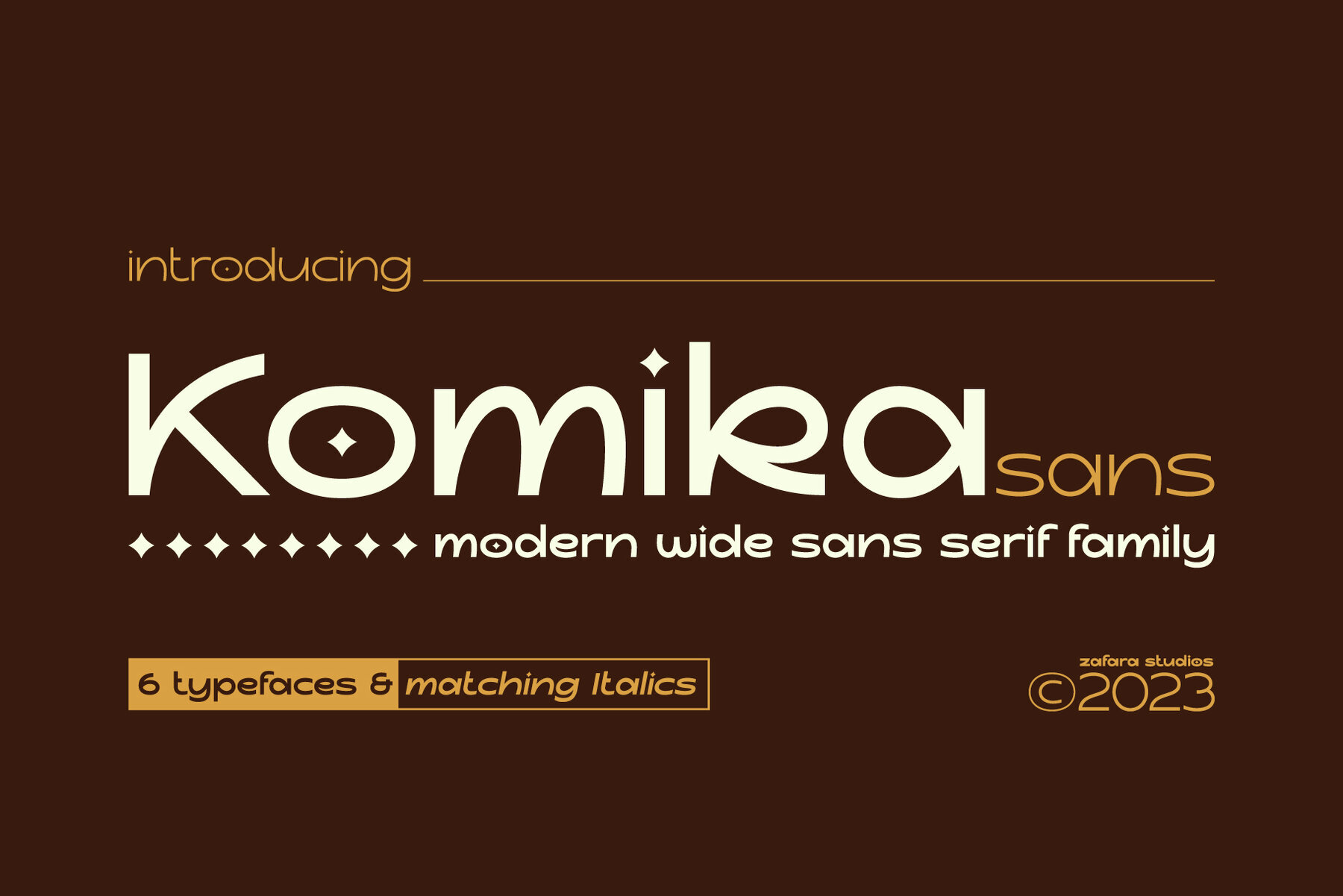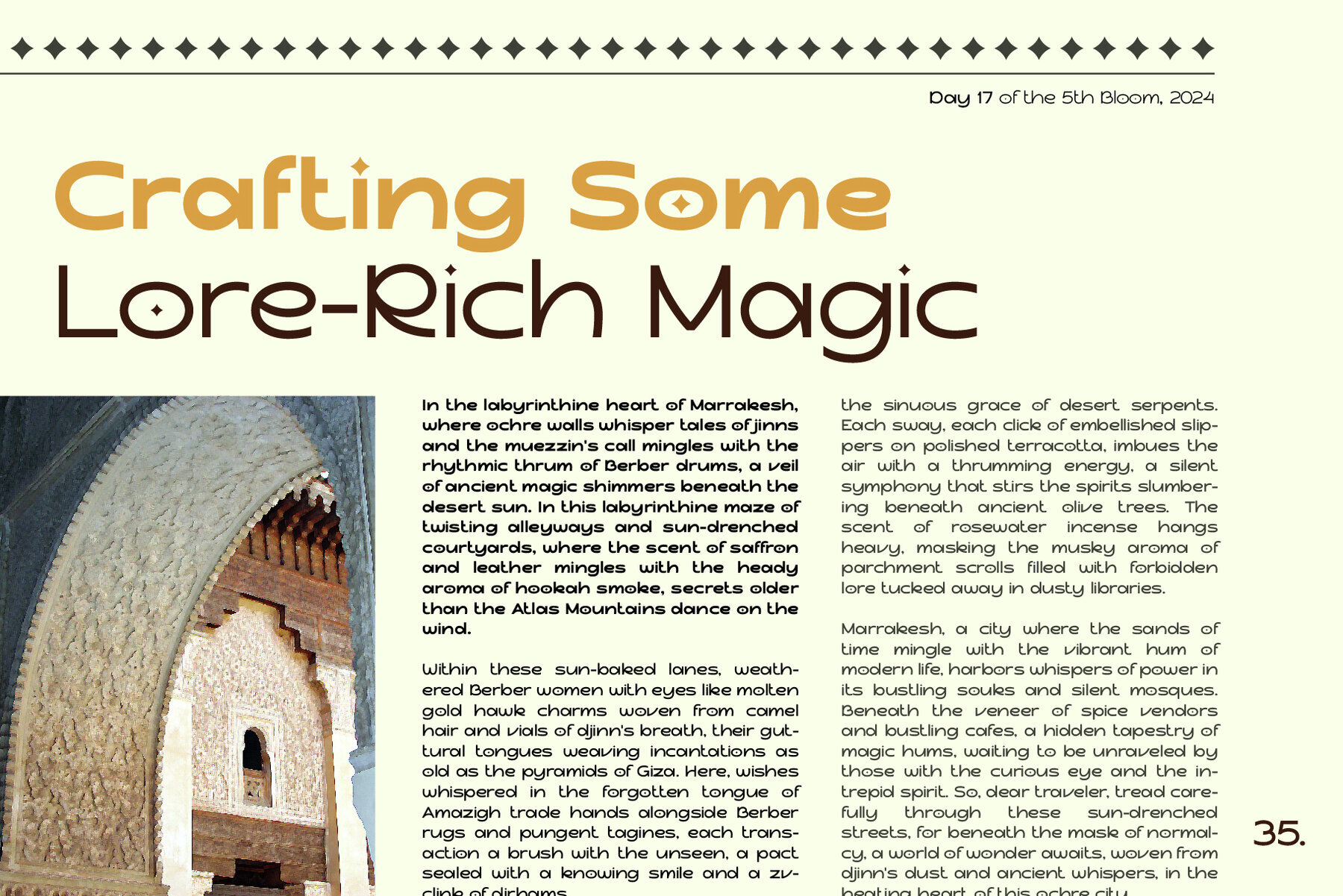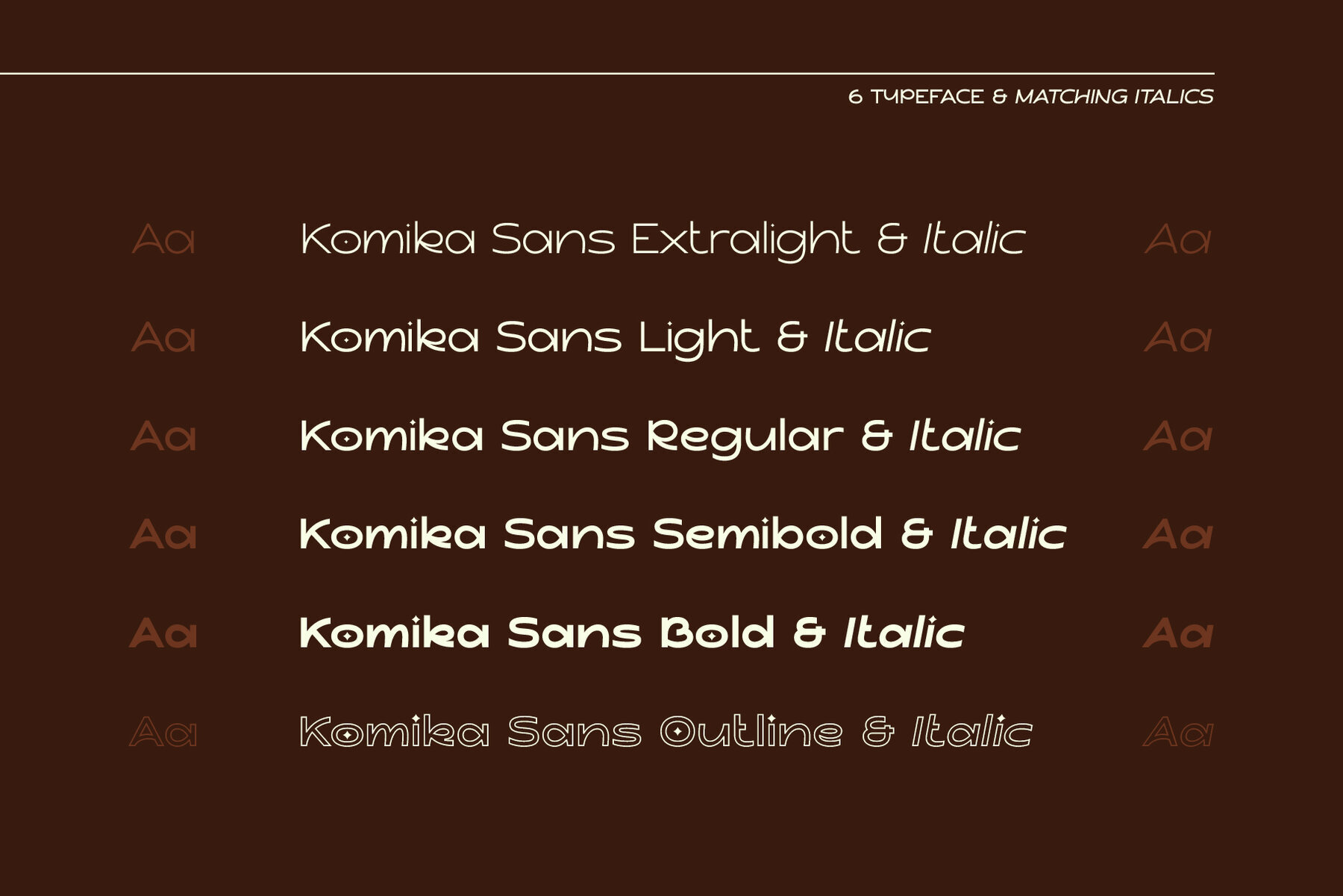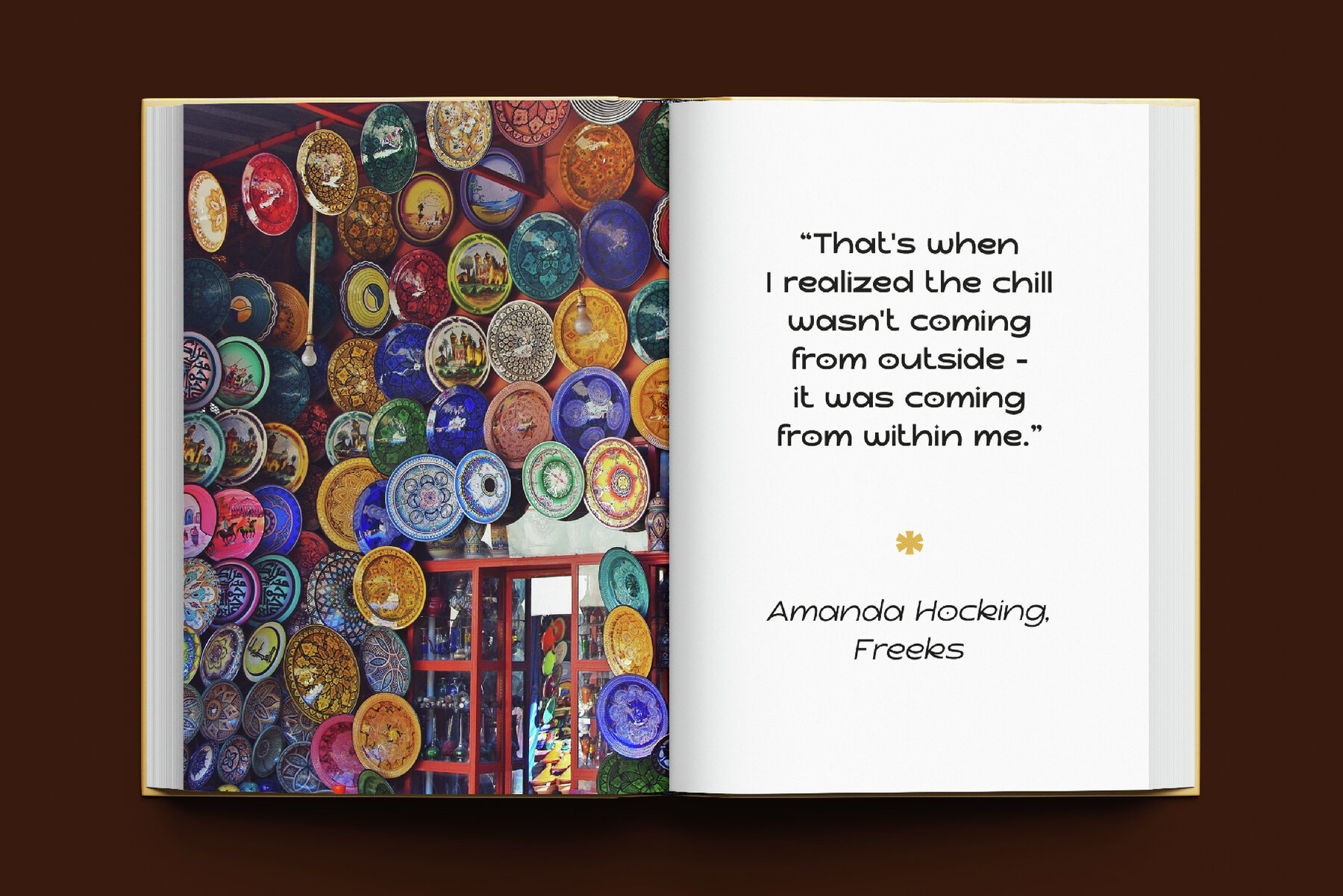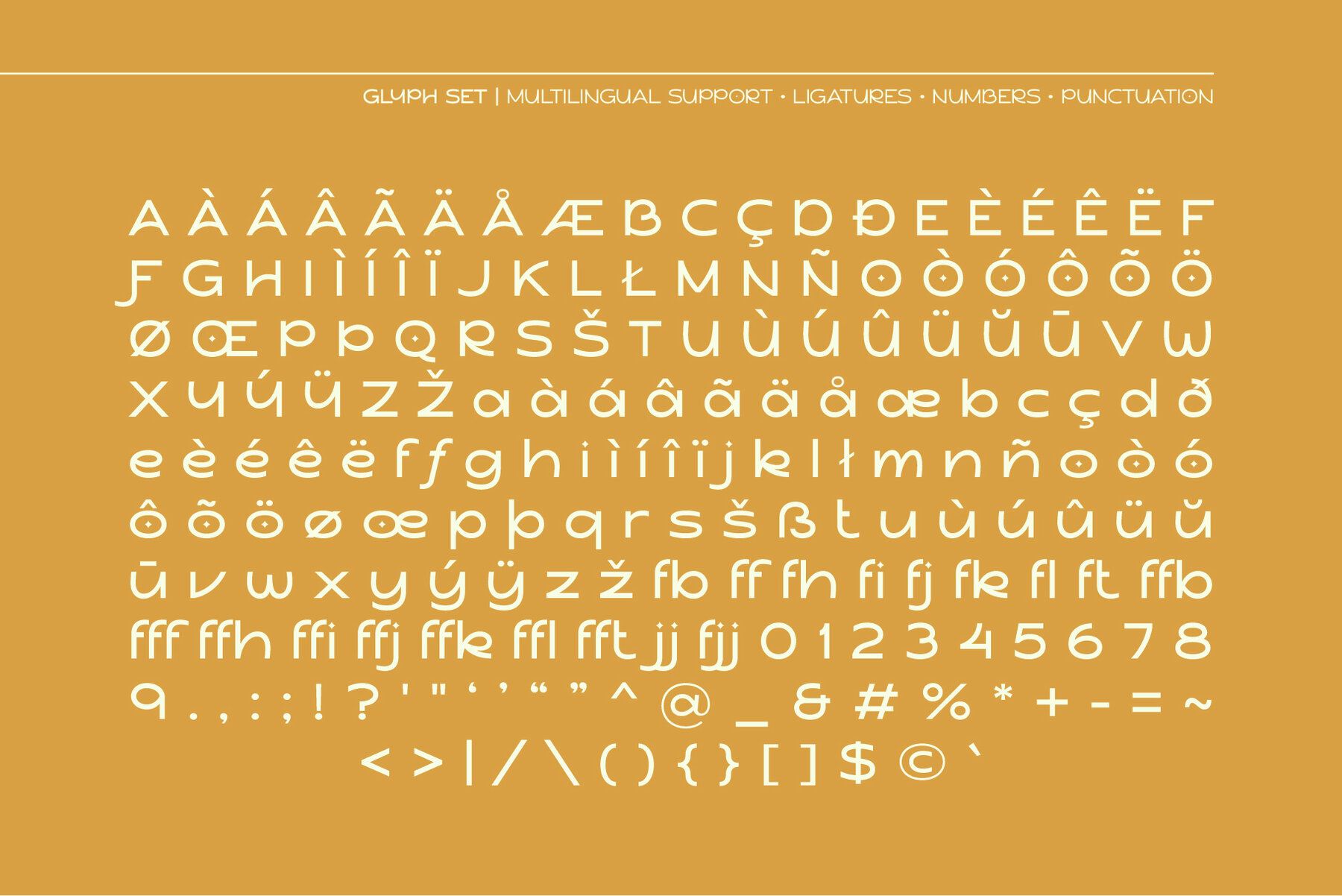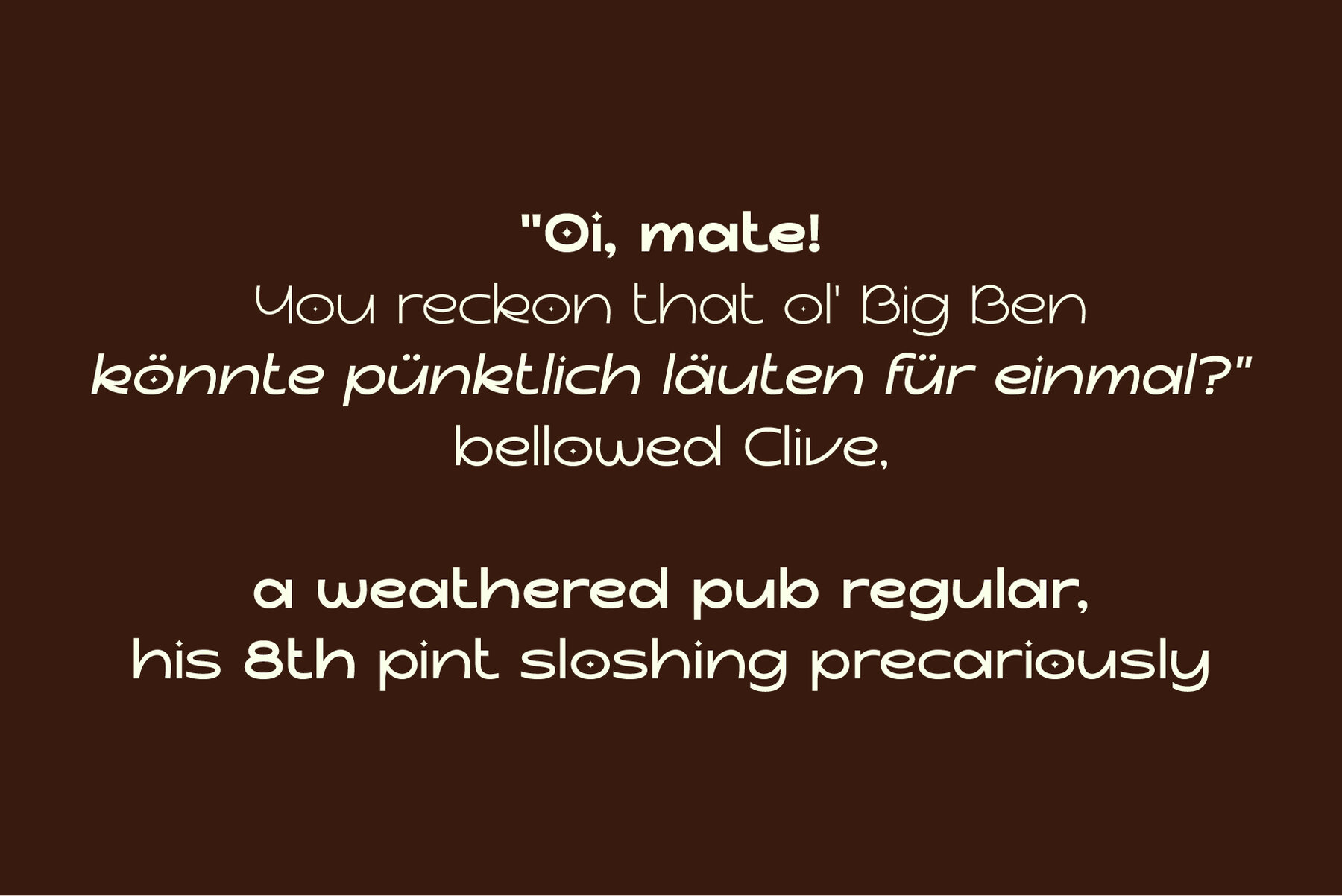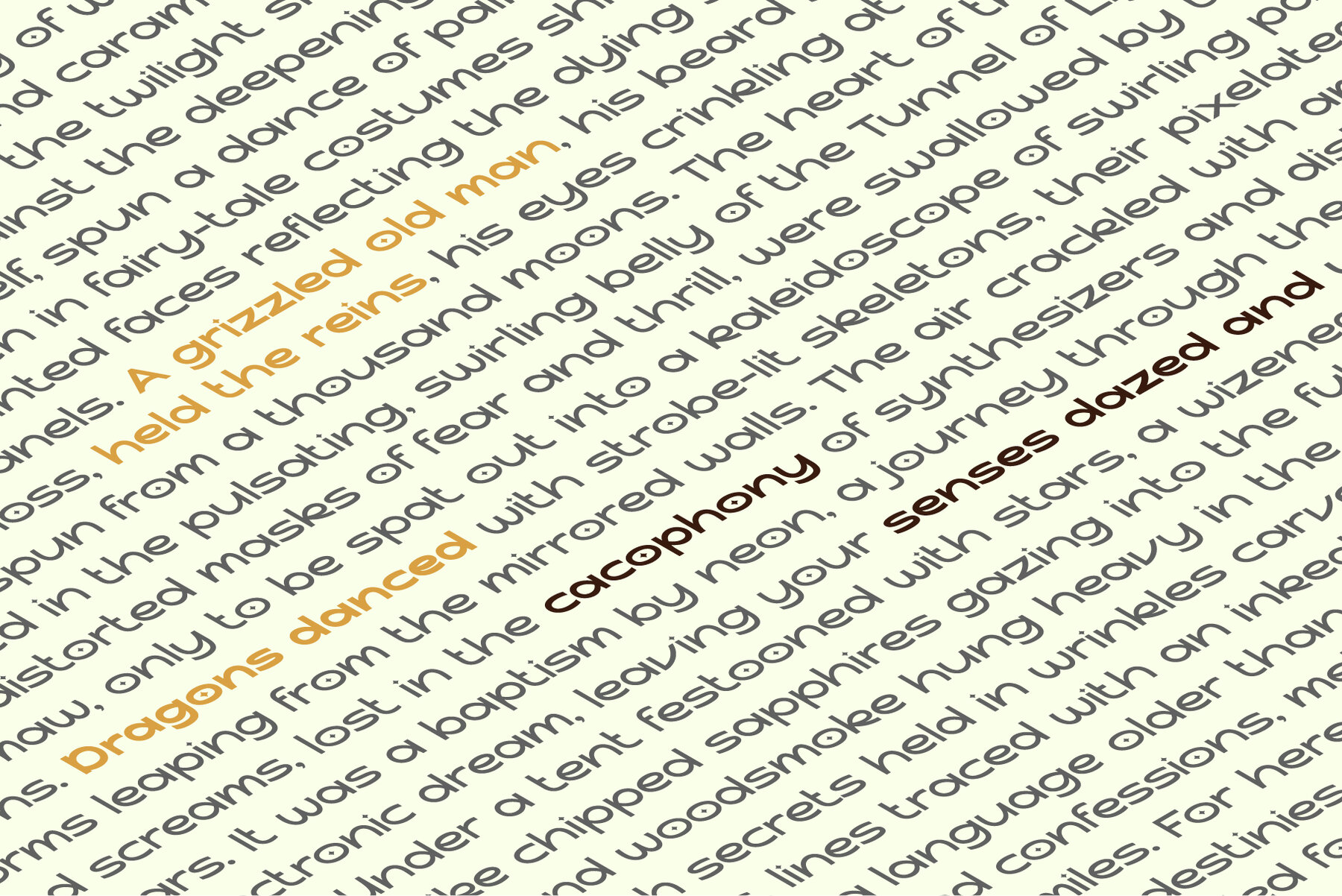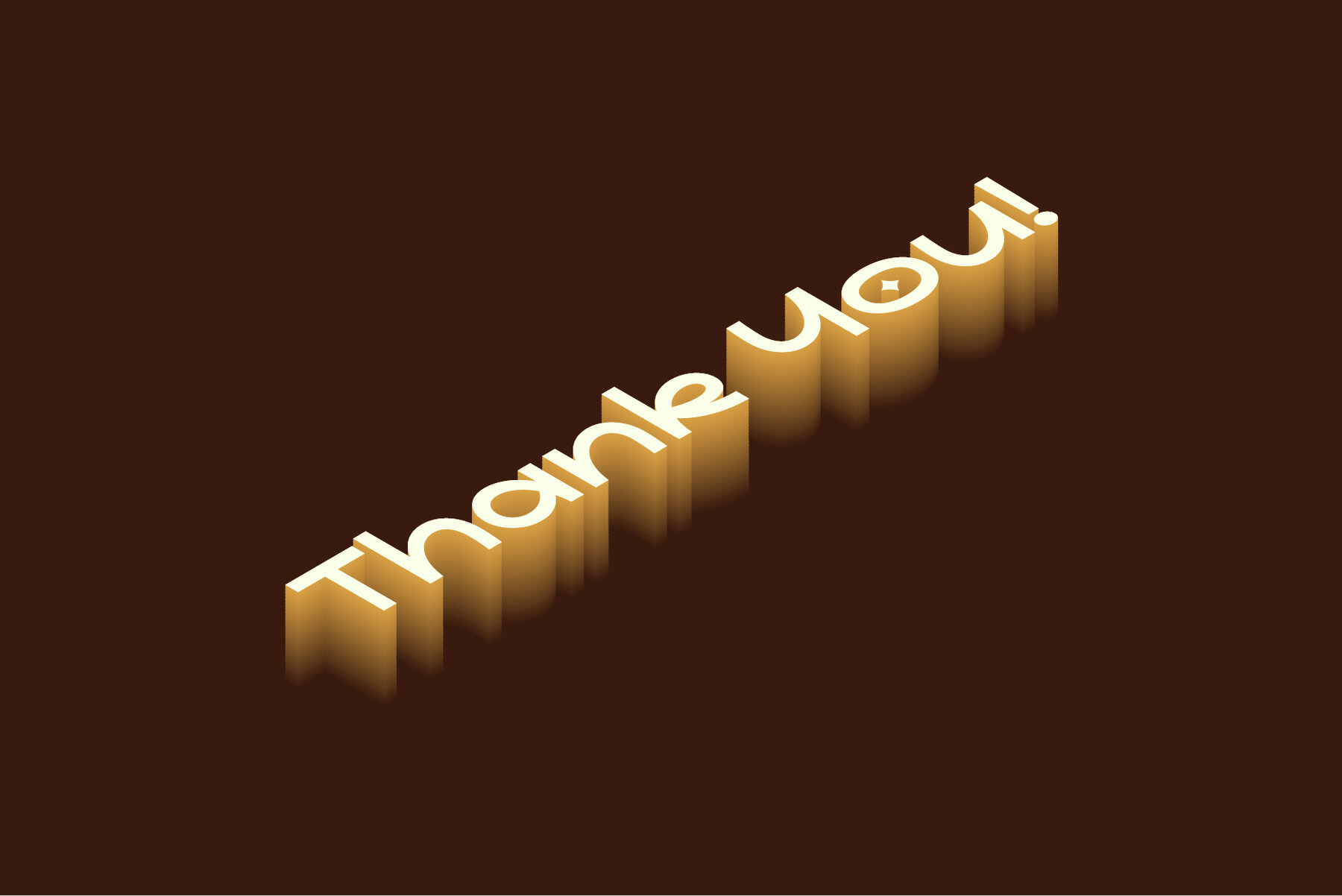
Komika Sans Font
Komika Sans is a geometric modern wide sans serif family, with 6 weights and 6 italics, which can be easily accessed from the OpenType menu. This font can be used for headlines, titles, logotypes, magazines, and other types of text that need to be visible and easy to read.